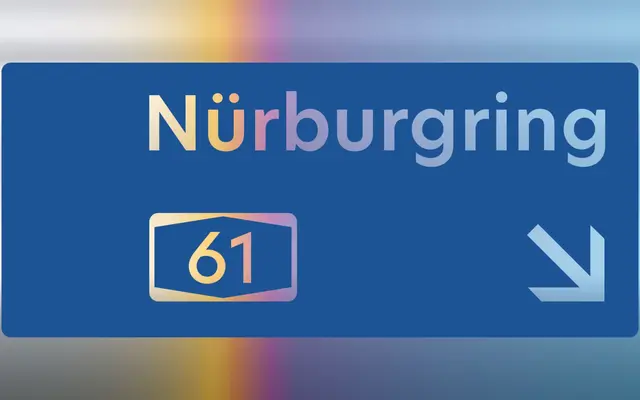
New Hero
New Hero specimen from Newlyn
A geometric sans developed over nine years for wayfinding and environmental use, covering Latin, Cyrillic, Greek and Georgian across ten weights.
Developed over nine years, New Hero takes the civic utility of signage typefaces like DIN or Interstate as its starting point, then strips out their idiosyncratic detailing in favour of clean vertical terminals and a slightly narrowed 'm'. Ten weights run from Hairline to Super, each with small caps across all supported scripts; the Cyrillic and Greek cuts won Granshan Awards and appeared in Typographica's Best Typefaces of 2015. An optional Accessibility Set modifies the letterforms 'a', 'g', 'l', 'J' and '1' for compliance with W3C guidelines, making it a practical choice for public sector and broadcast contexts.
New Hero pairs functional geometry with clean vertical terminals and a slightly narrow 'm', placing it squarely in the geometric sans tradition, with a civic and wayfinding orientation rather than a purely abstract or Bauhaus-derived one.